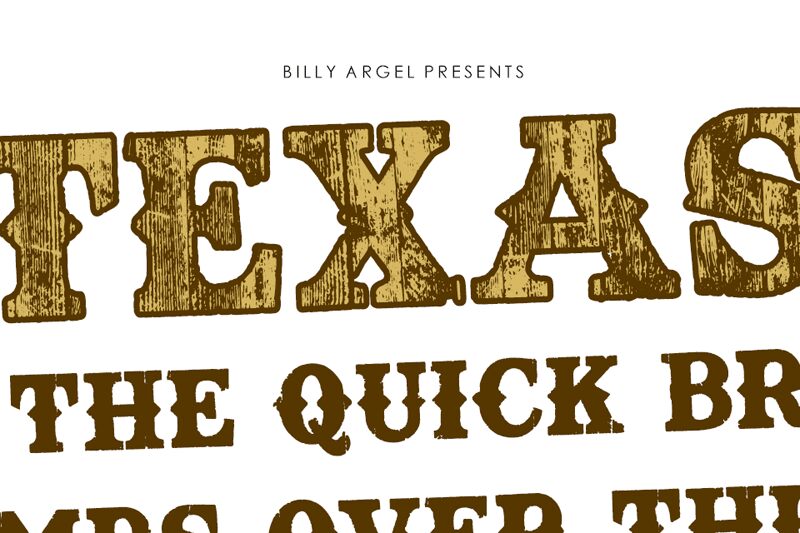
TEXASWOOD Bold by Billy Argel is a bold eroded display font that makes an immediate statement. With its distinctive eroded lettering, this font can add a unique look to your projects. From posters and flyers to any project needing an edgy and stylish touch, TEXASWOOD Bold is the perfect choice for adding character and impact. Let this font take center stage for an unforgettable design!
Layered font!
Presentazione e campione visivo del carattere TEXASWOOD PERSONAL USE Bold